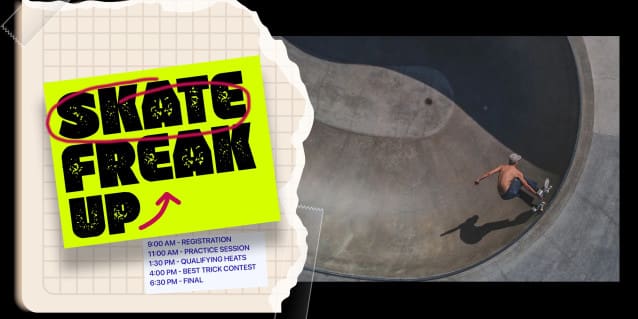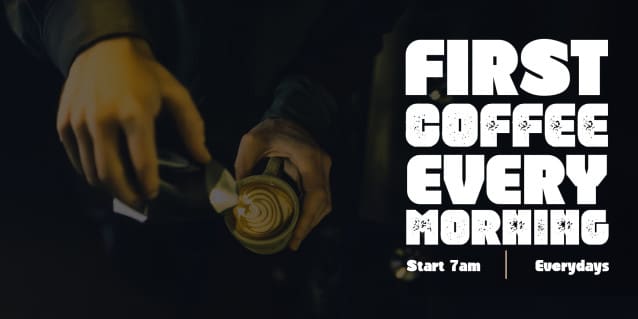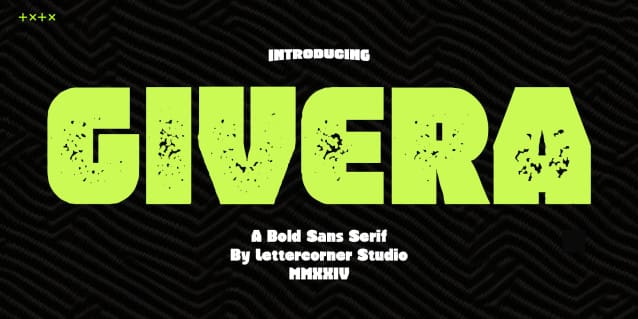
Givera Font
Givera Font is a Display font published and design by Lettercorner Studio Inspired by the big board sign in every corner of the town and shadows me every time I close my eyes when I tried to sleep. well Givera Font is a strong and bold typeface it has multilingual language, it useful for your a cool and coolest project up next. Try this font on any surface it will looks Stunning!. happy creating. hope you like it!